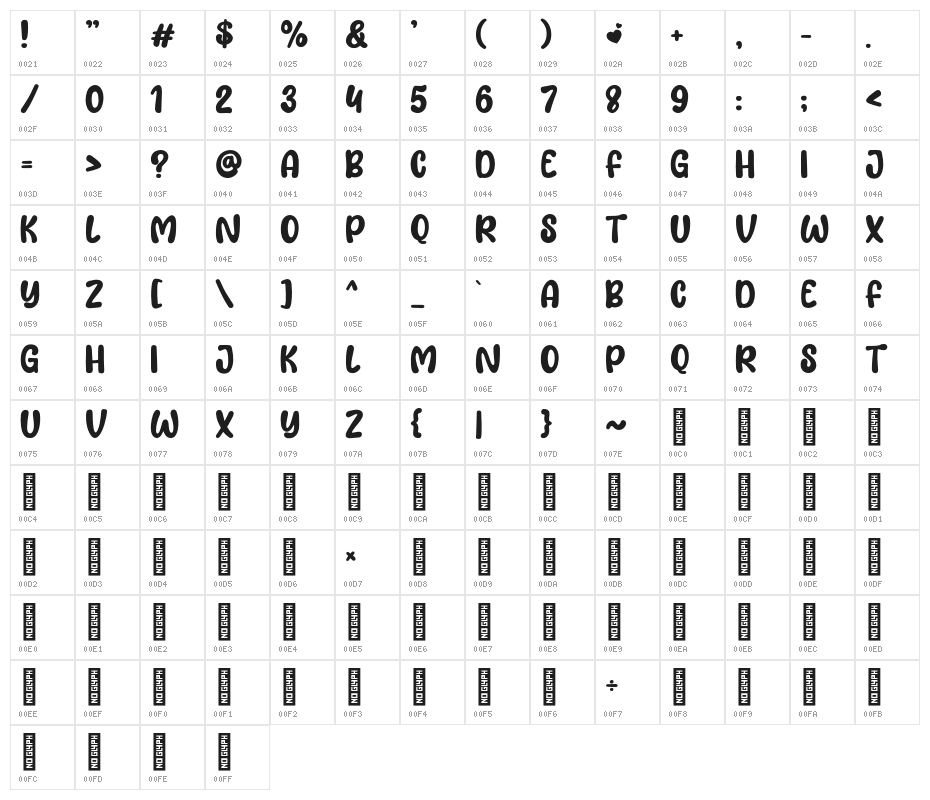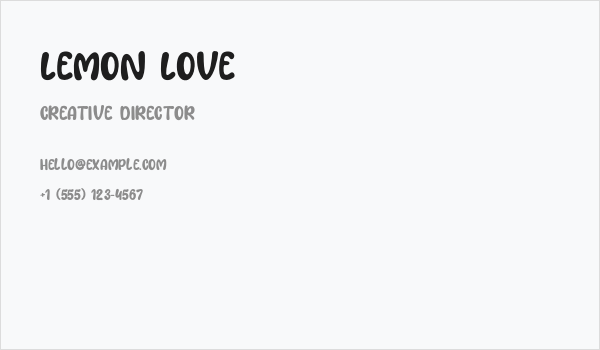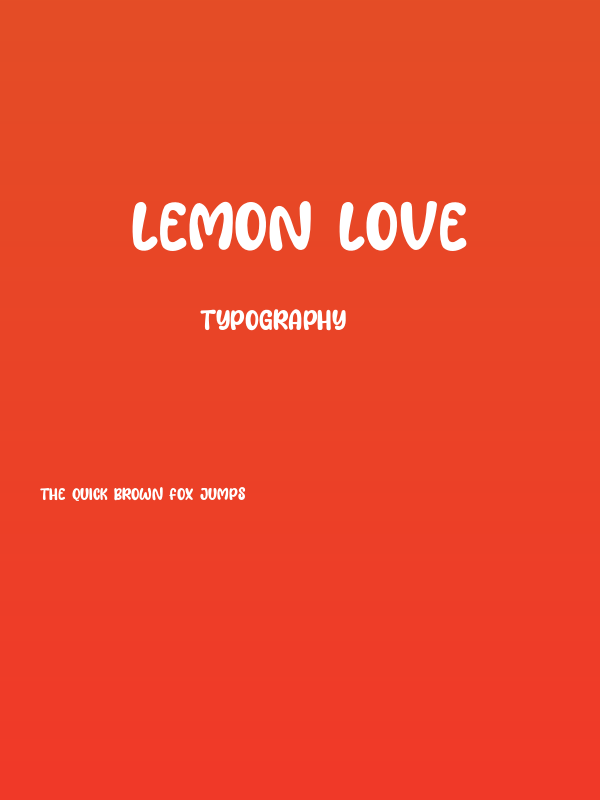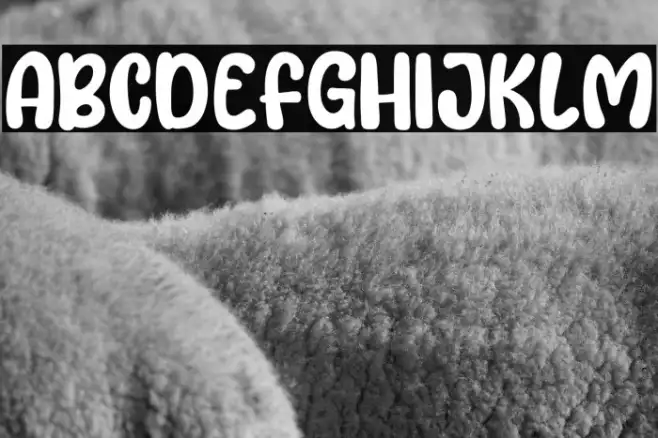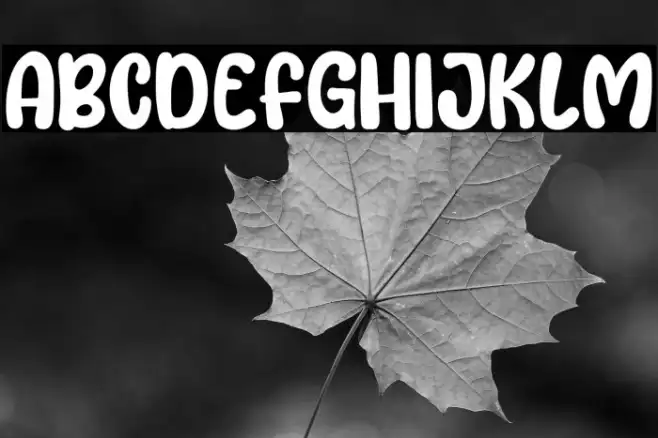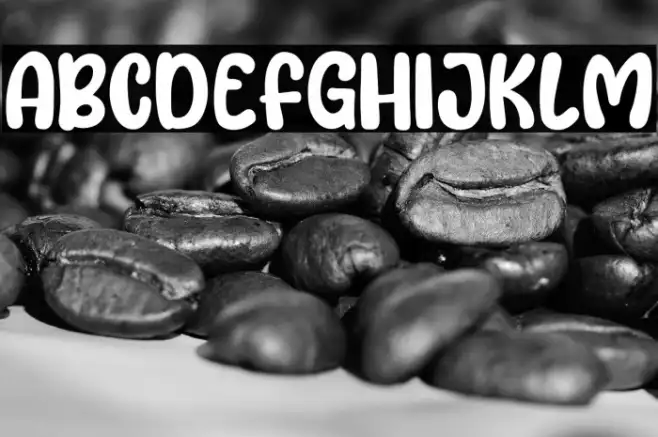
Lemon Love Font
Lemon Love Description
This playful and bold font features rounded, thick strokes that give it a friendly and approachable appearance. The characters are slightly condensed, with a consistent weight that makes them stand out. The font includes both uppercase and lowercase letters, numerals, and a variety of special characters. Its smooth curves and lack of sharp edges contribute to a whimsical and informal style, making it ideal for creative and fun projects.
| Proposed Projects | Perfect for children's books, playful branding, party invitations, and creative posters. |